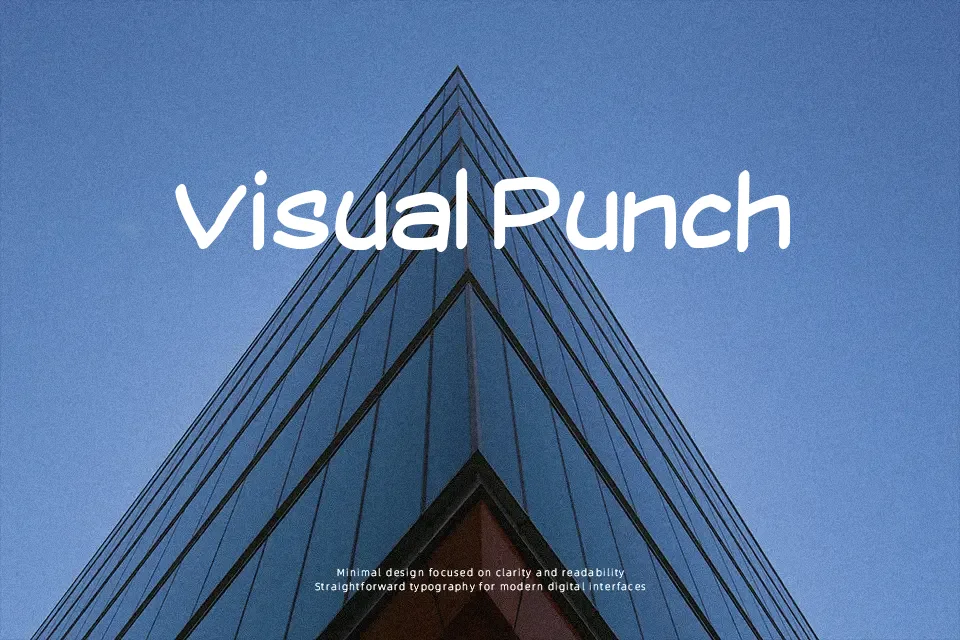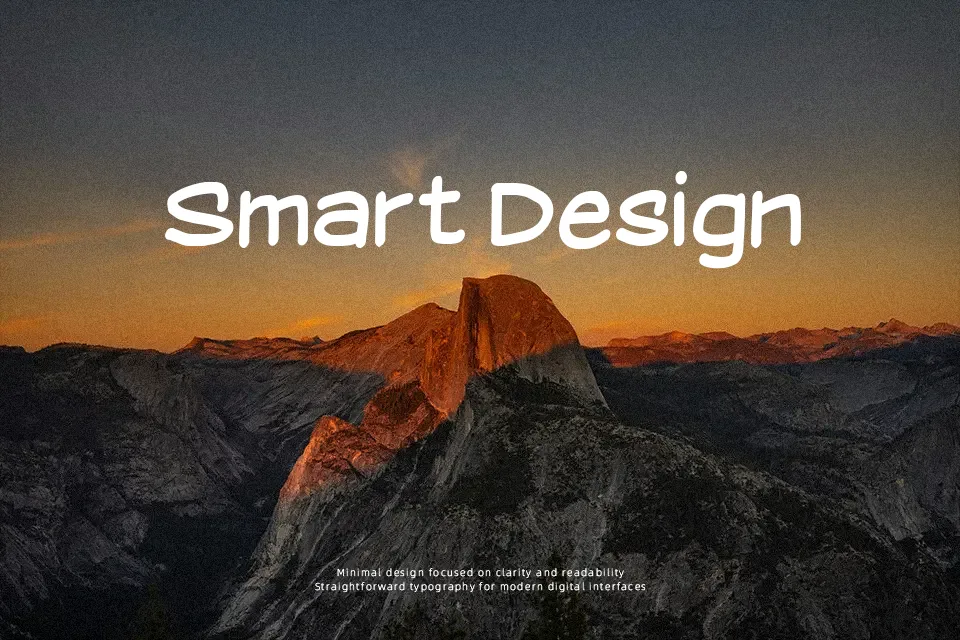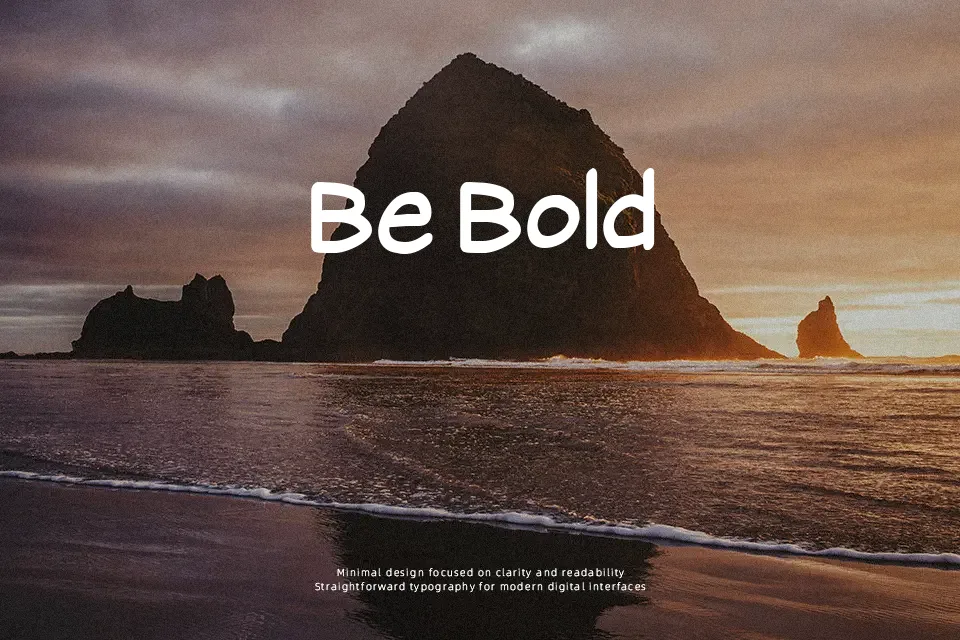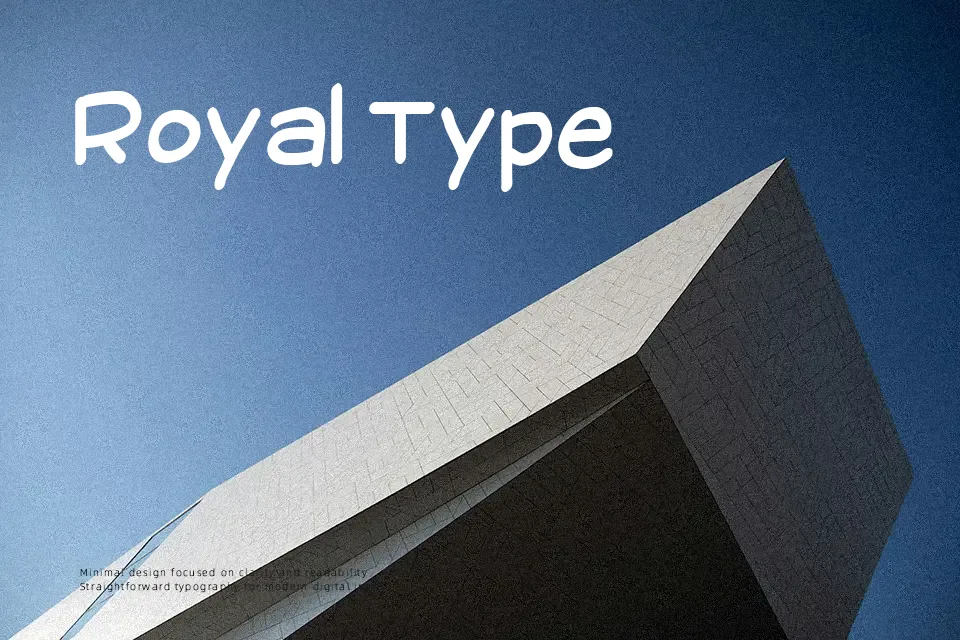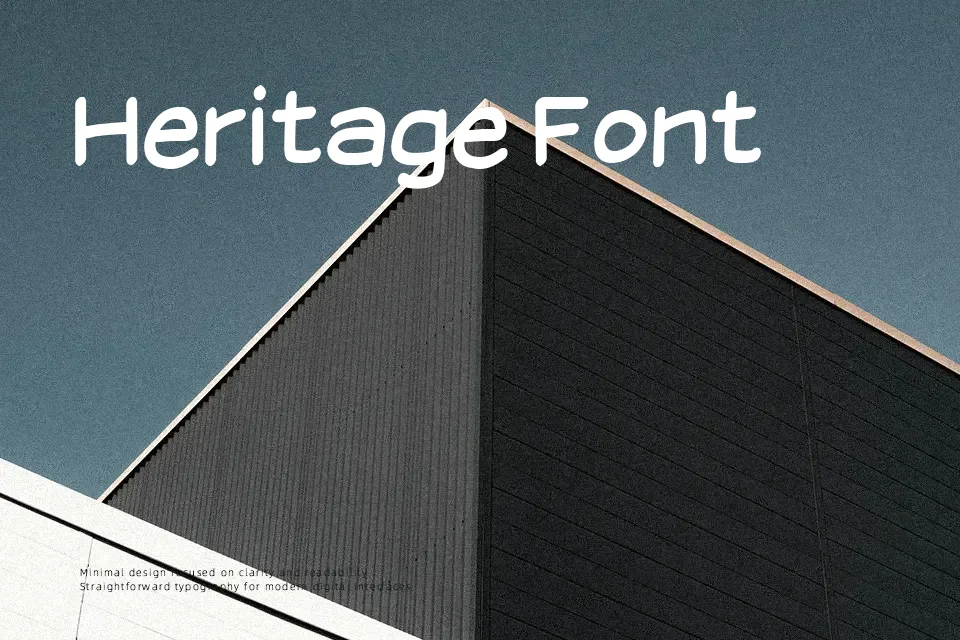
Suplexmentary Comic NC Font
Designed by Jayvee Enaguas
Suplexmentary Comic NC Font presents a lively display design defined by heavy, uniform strokes, soft curves, and generous proportions. The letterforms exhibit low stroke contrast with balanced interior counters, creating a relaxed rhythm reminiscent of hand-drawn comic lettering. Spacing across characters remains relatively open, allowing short titles, speech bubbles, and promotional graphics to retain distinct letter separation at display scale. The sturdy weight ensures immediate visual punch on printed posters and digital thumbnails. However, the informal geometry and thick stems reduce comfort during extended reading, making the typeface unsuited for dense body paragraphs or miniature technical labels.
Best For: comic strip dialogue, cartoon title sequences, children book covers, casual merchandise packaging
Not Ideal For: long editorial paragraphs, corporate legal documents, spreadsheet data, small mobile UI captions